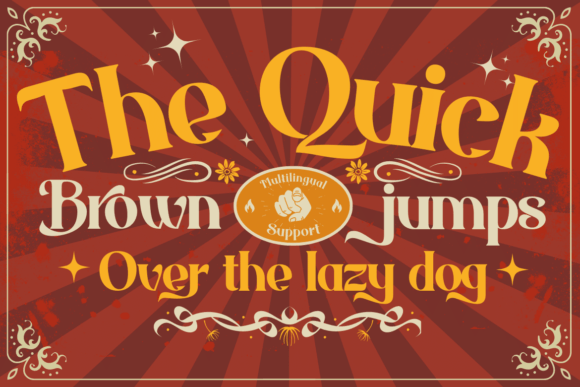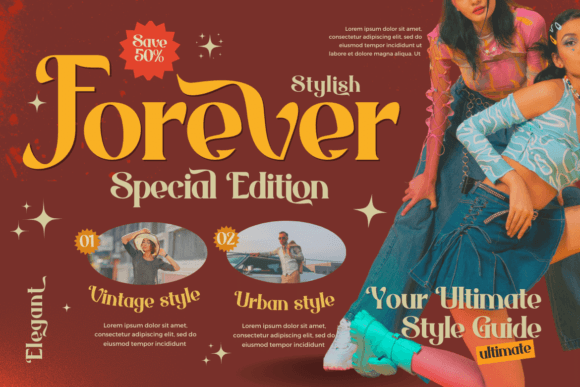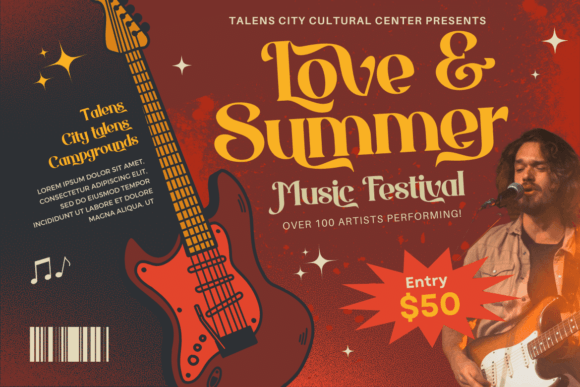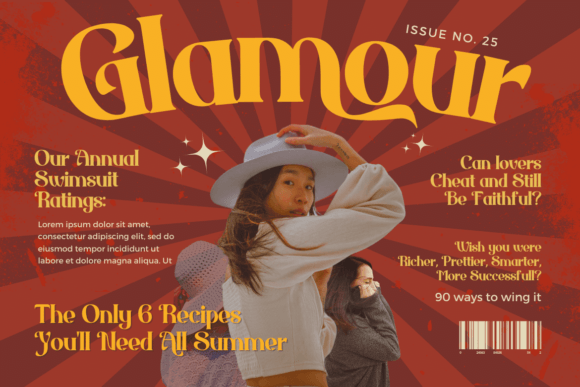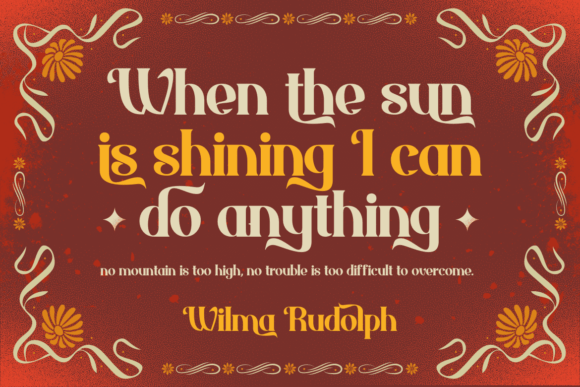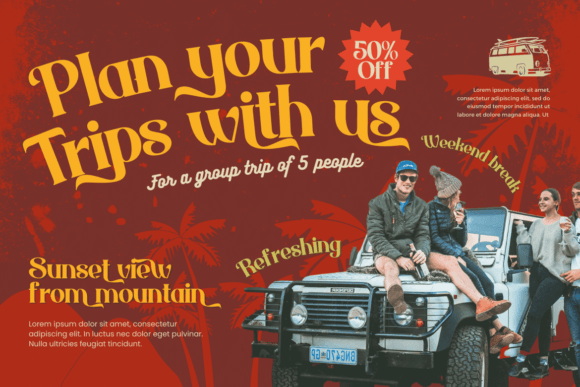
Introduction to Broodim Font
Broodim is a unique, stylish, and fun display font.
Why Choose Broodim Font?
Broodim Font offers exceptional quality and versatility, making it a valuable addition to your design toolkit. Whether you’re creating for personal projects or commercial use, Broodim Font delivers professional results.